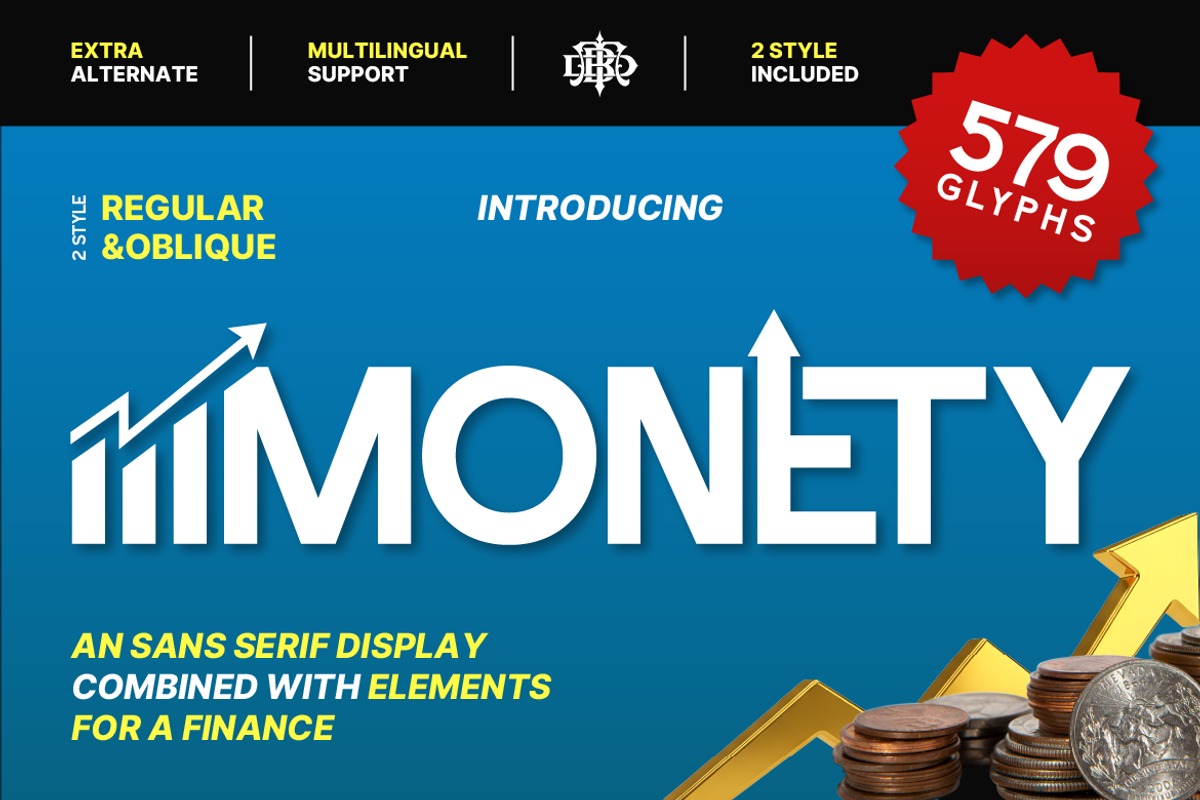
Monety – Sans Serif Logo Font
Monety – Sans Serif Logo Font is a premium-quality font developed to enhance your work with a polished, modern, and visually elevated look. Monety is a modern sans serif display typeface designed specifically for the world of finance, fintech, and high-stakes branding. With over 579 glyphs and a unique “growth element” design, featuring integrated bar charts and upward arrows, this font captures the spirit of a rising market. If you’re creating branding for fintech startups, investment platforms, business presentations, or promotional campaigns, Monety helps your message stand out with clarity and authority. This font comes in 2 styles: Regular and Oblique, giving you flexibility to create both stable and dynamic compositions.